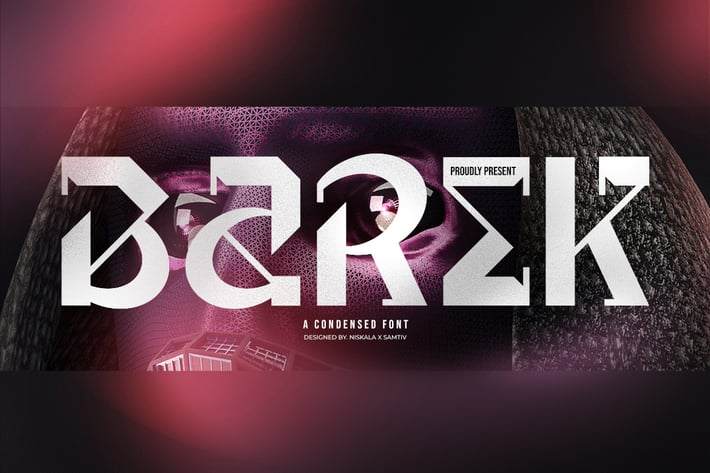
Barek - A Futuristic Display Typeface
Barek is an awesome with Futuristic cutouts, and a dynamic slant. Ideal for Poster titles, menu flyer, Packaging, Logo and monograms or other modern dynamic text. Barek compares favorably with legibility and size, creating the effect of power. Designed as a fast and dynamic font, but with a slightly different font design, check it out and grab it right away.
Featured:
+ Uppercase
+ Lowercase
+ Punctuation
+ Number